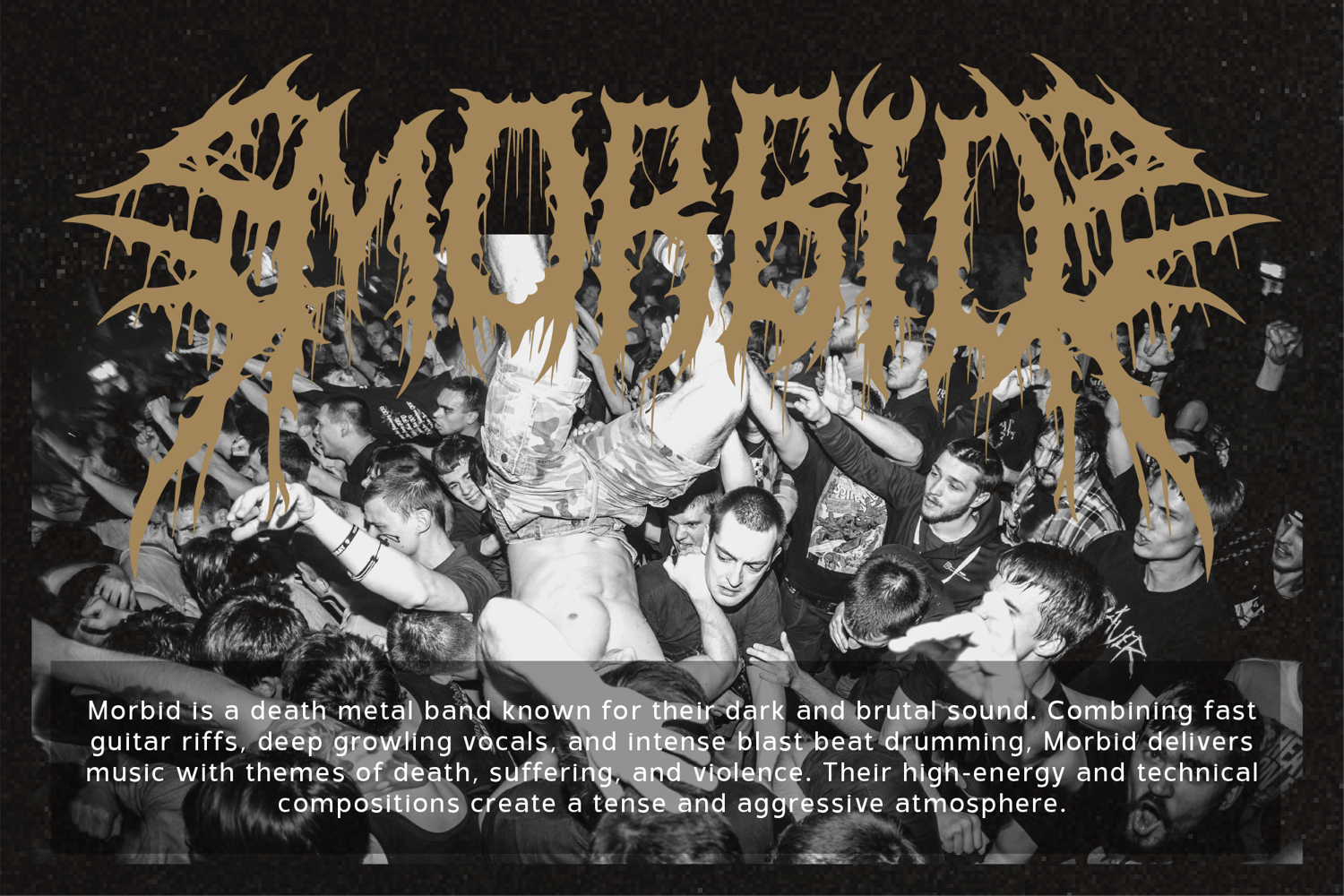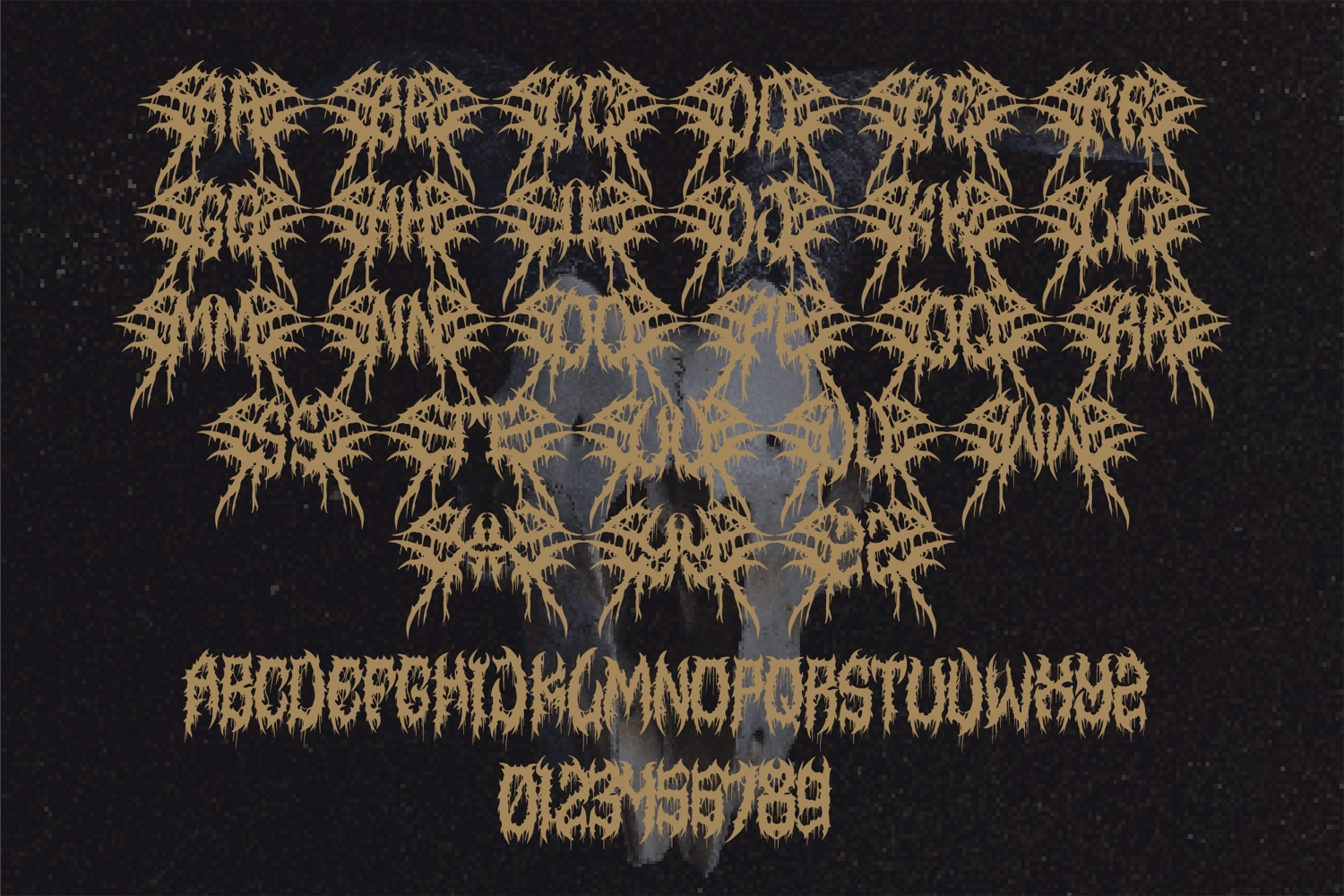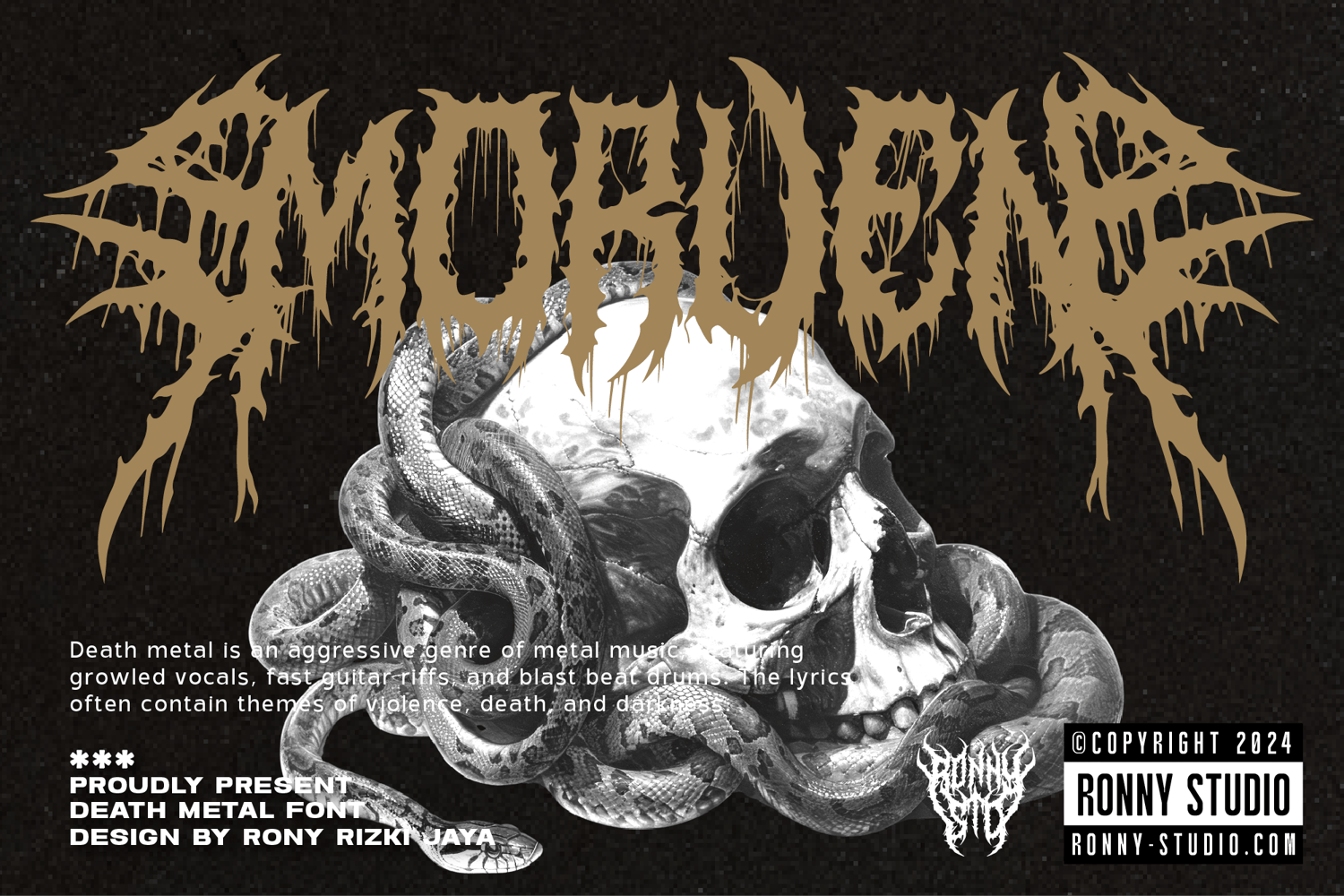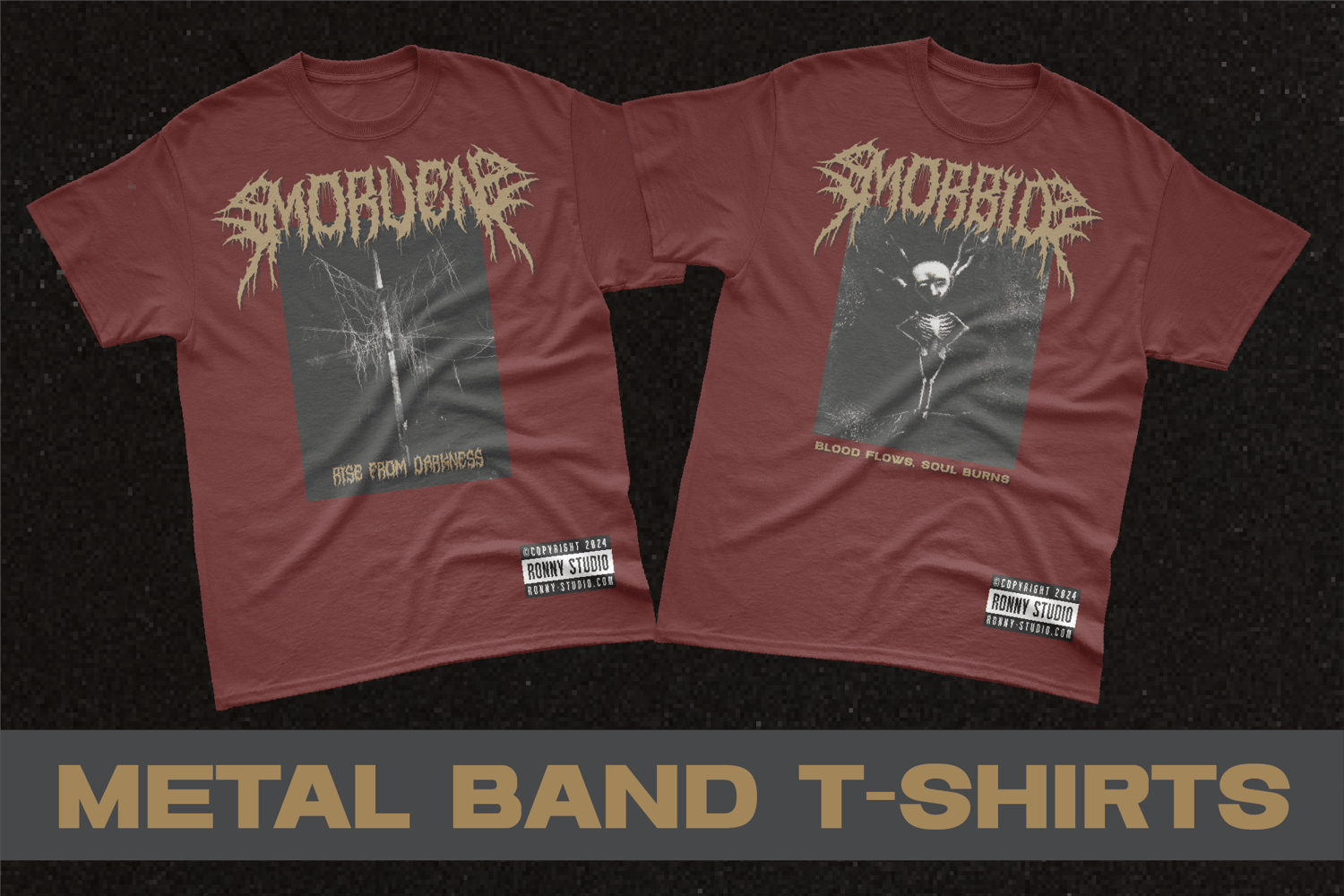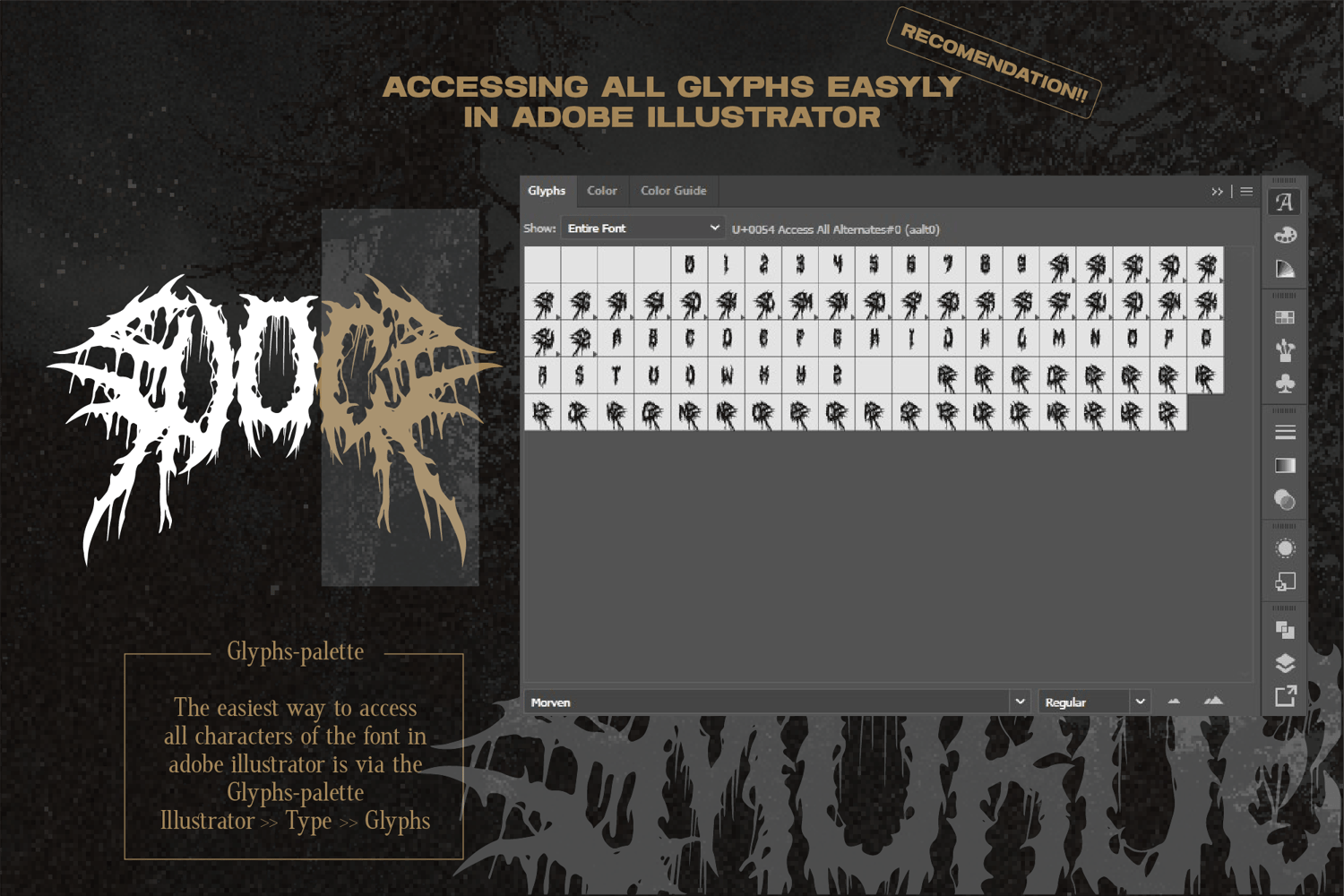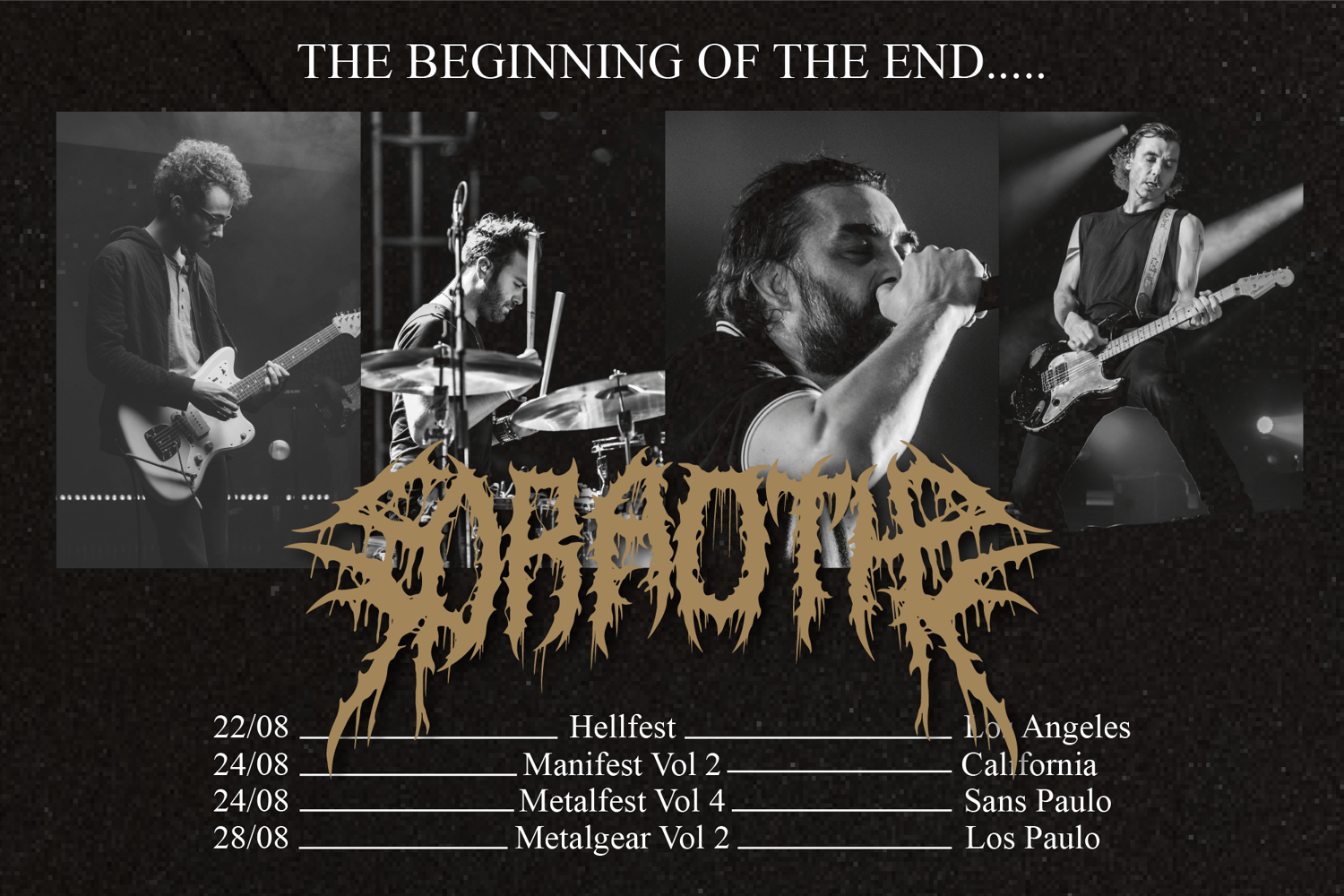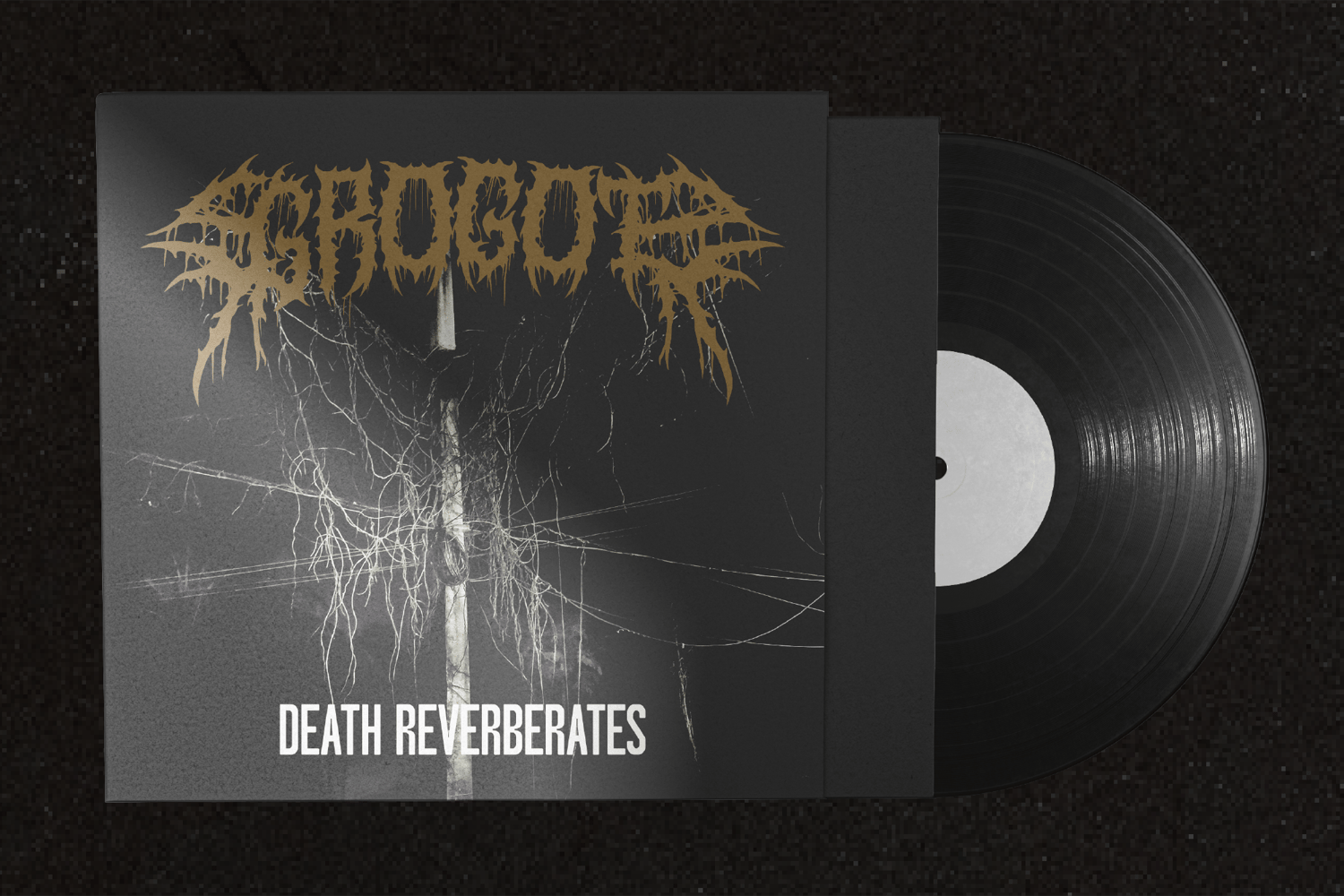
The Morven Death Metal font features sharp, edgy designs perfect for dark and bold projects. With its distinctive death metal style, this font is ideal for album covers, posters, or brands looking to make a rebellious, powerful statement. Stand out with Morven Death Metal and add intensity to your designs!